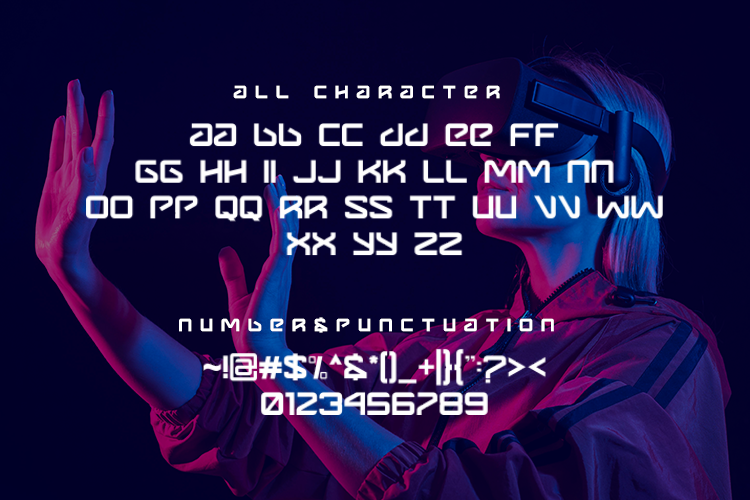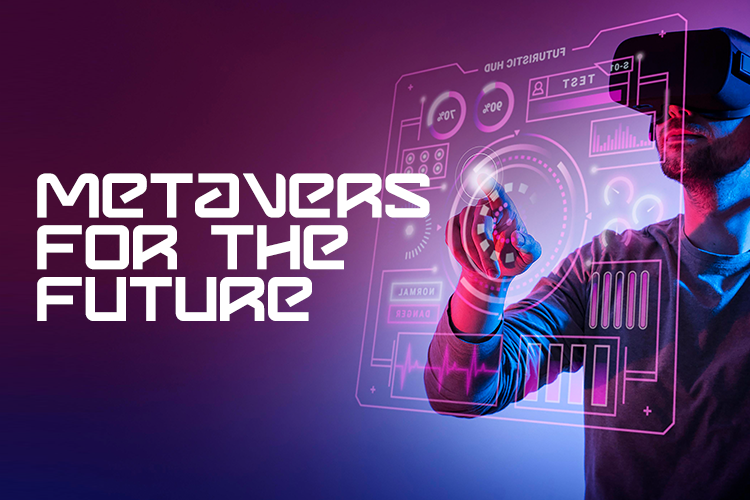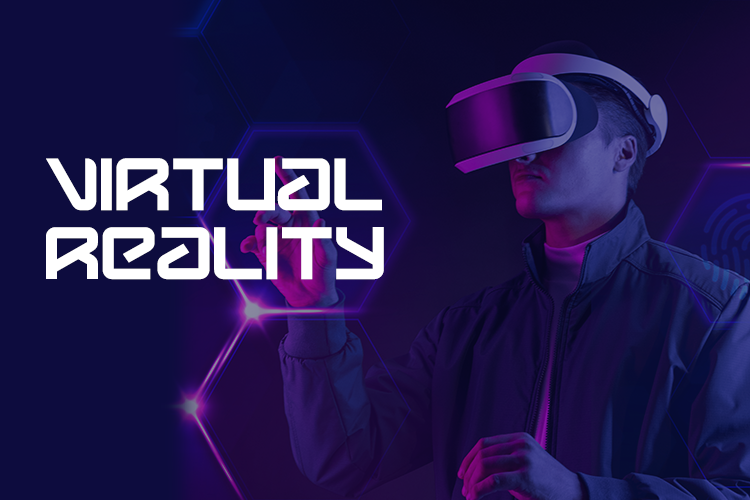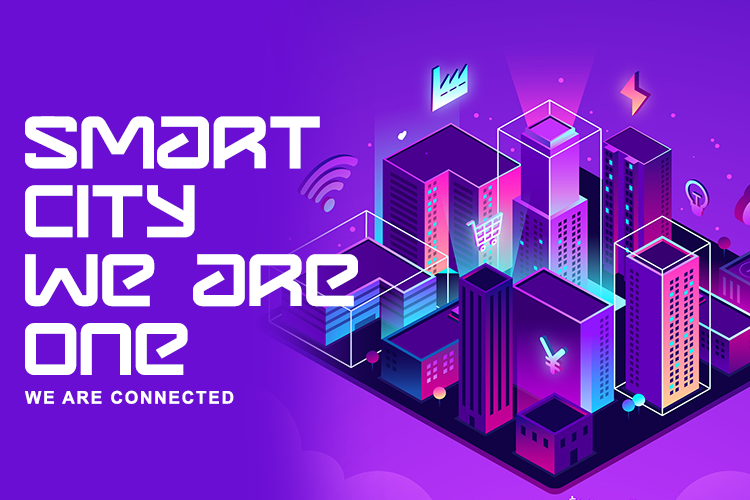
Metavers Font
Metavers Display Font
This font is futuristic typeface It is recommended to use it at techno design project like cryptocurrency icon , but you can customize it perfectly for your own design, use it to create logos, emblems, posters, games, movie tittle, book cover anything project with techno and futuristic themes